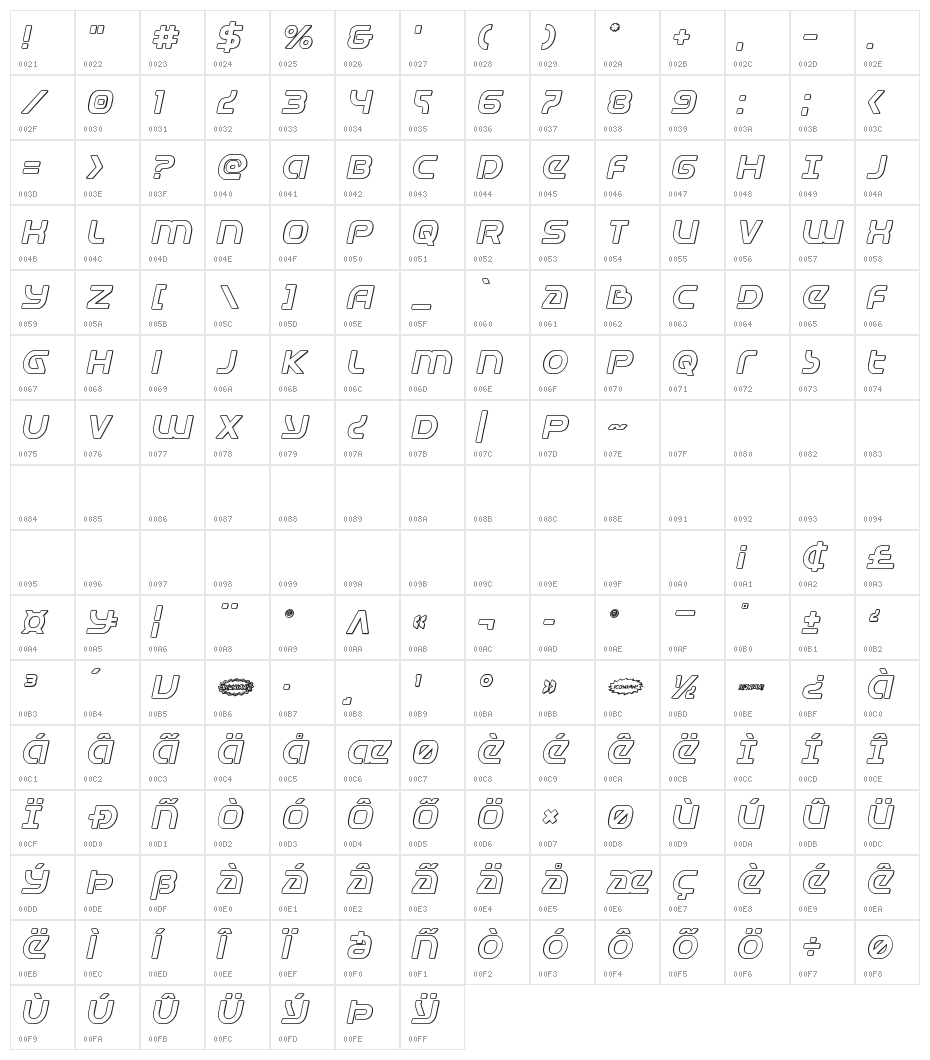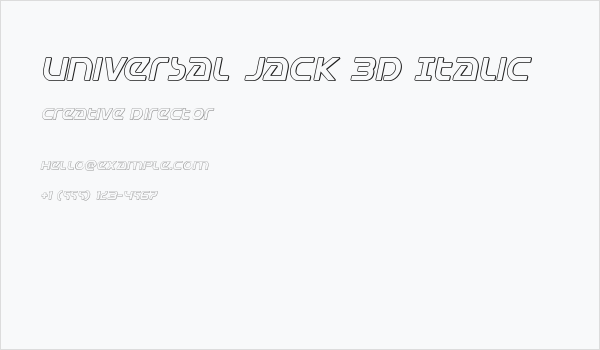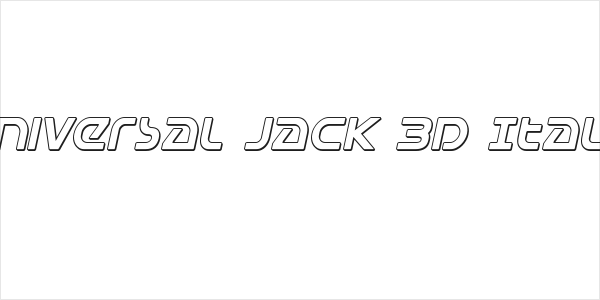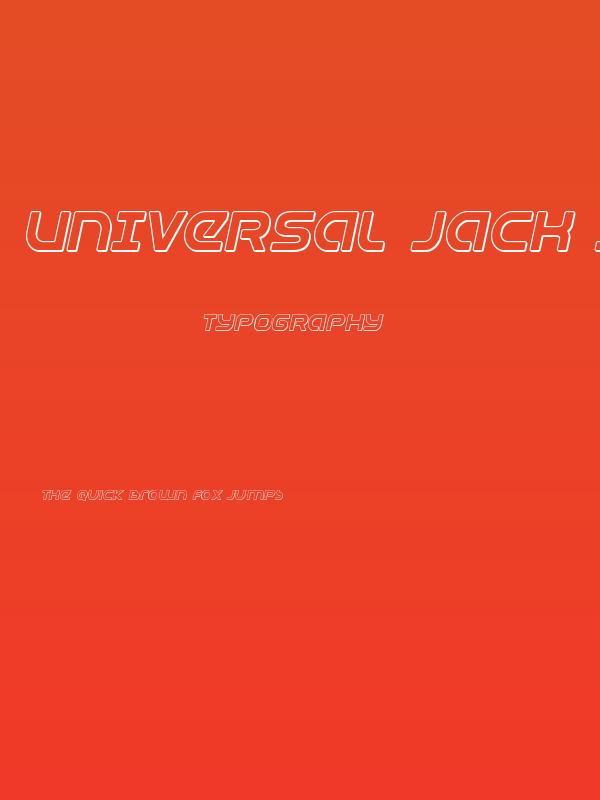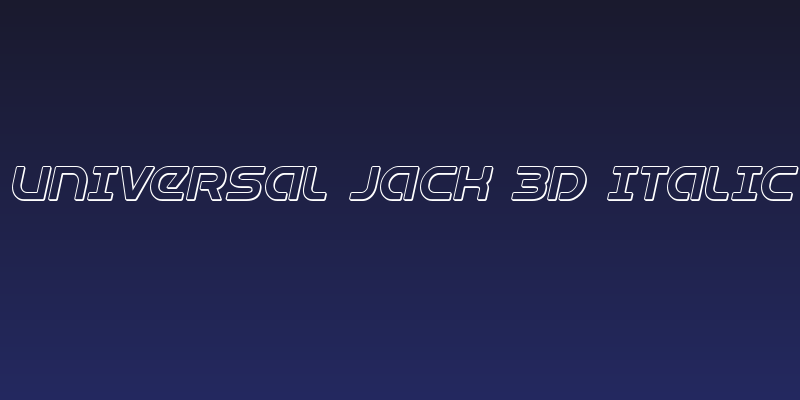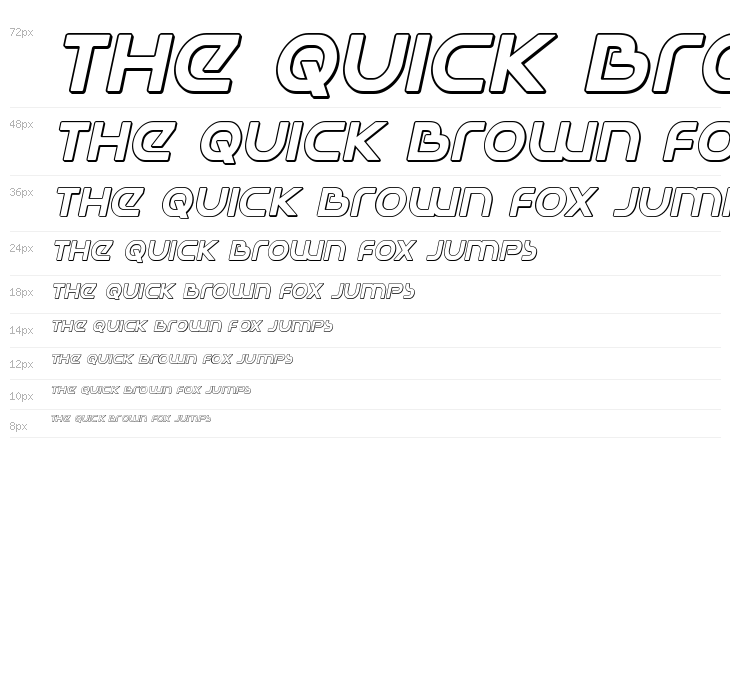
Universal Jack 3D Italic Font
Universal Jack 3D Italic Description
This font features a bold, three-dimensional design with an italic slant, giving it a dynamic and futuristic appearance. The characters are outlined, creating a hollow effect that enhances the 3D illusion. The uppercase and lowercase letters maintain a consistent style, with smooth curves and sharp angles that contribute to its modern aesthetic. The numerals and special characters follow the same design principles, ensuring uniformity across all glyphs. This font's unique style makes it stand out, perfect for projects that require a bold statement.